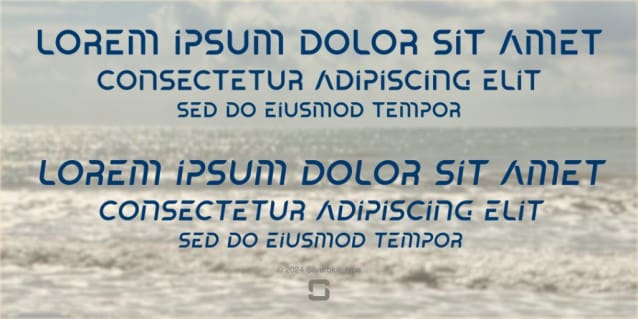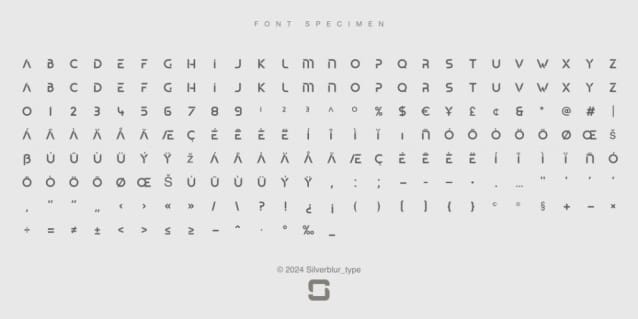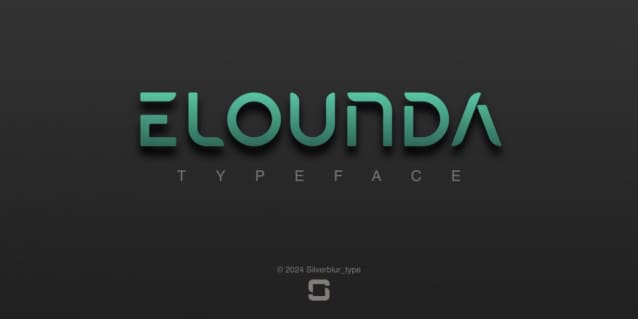
Elounda Font
Elounda Font – Minimalist geometric typeface designed using a few geometric shapes with constant thickness
Type of usage: graphic projects, logos, branding, packaging.
All uppercase characters: the lowercase character is equal to the uppercase.